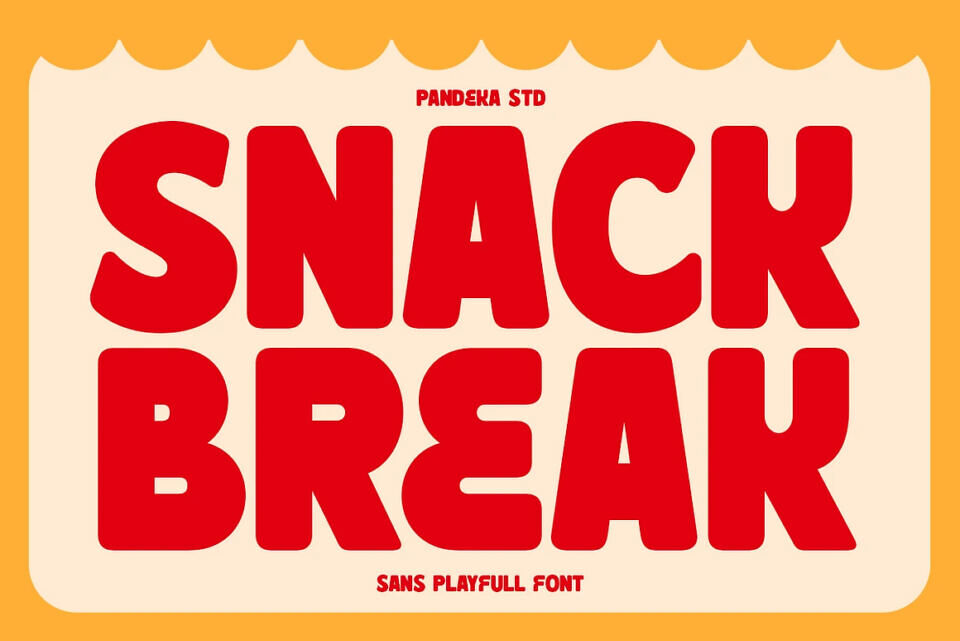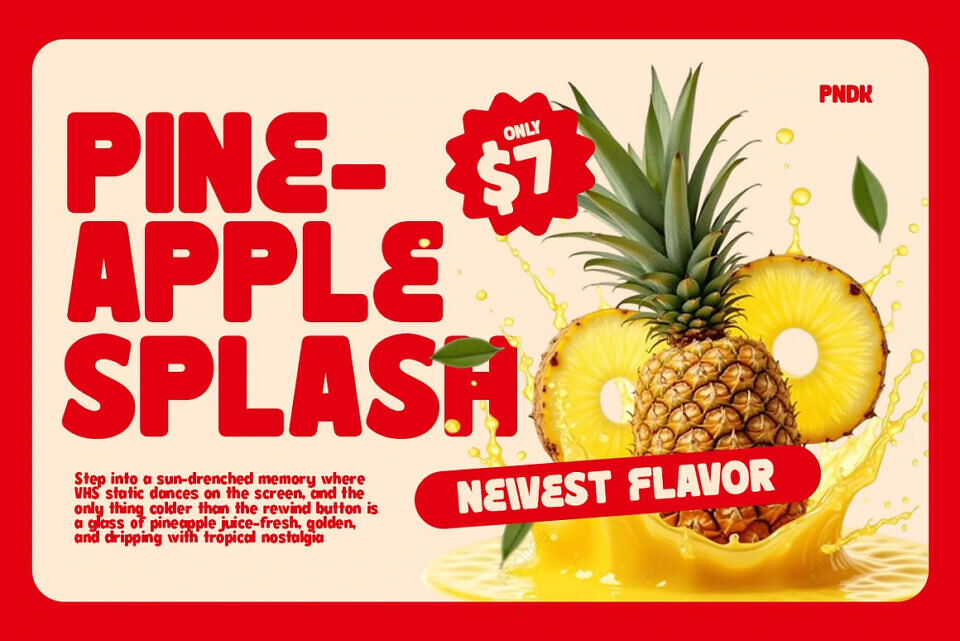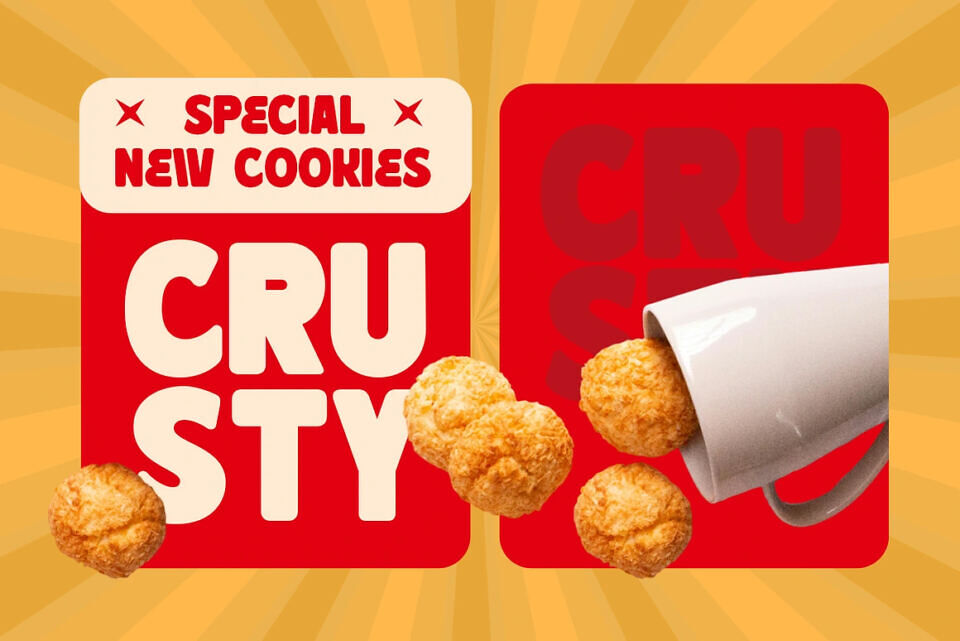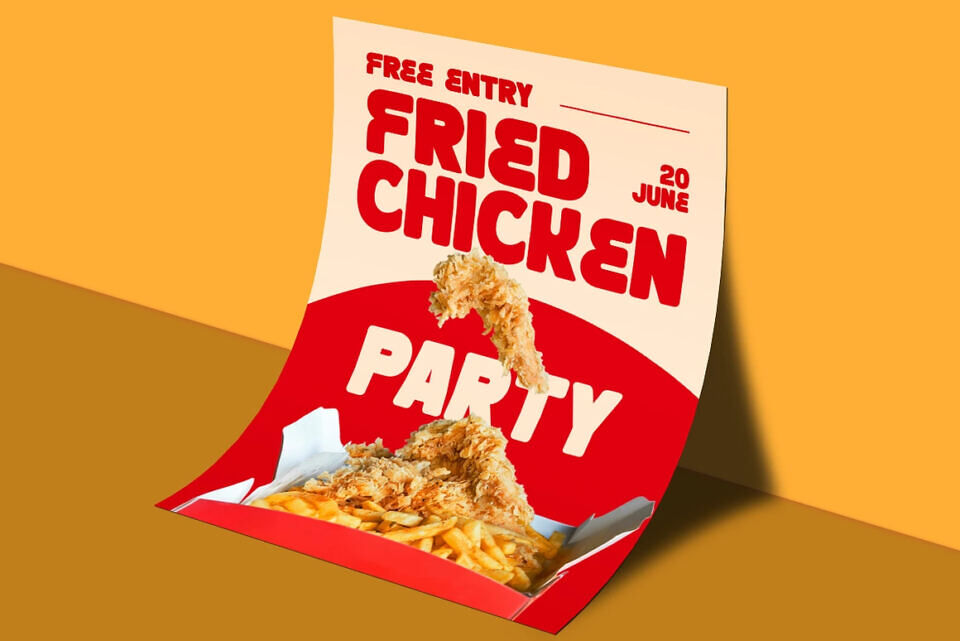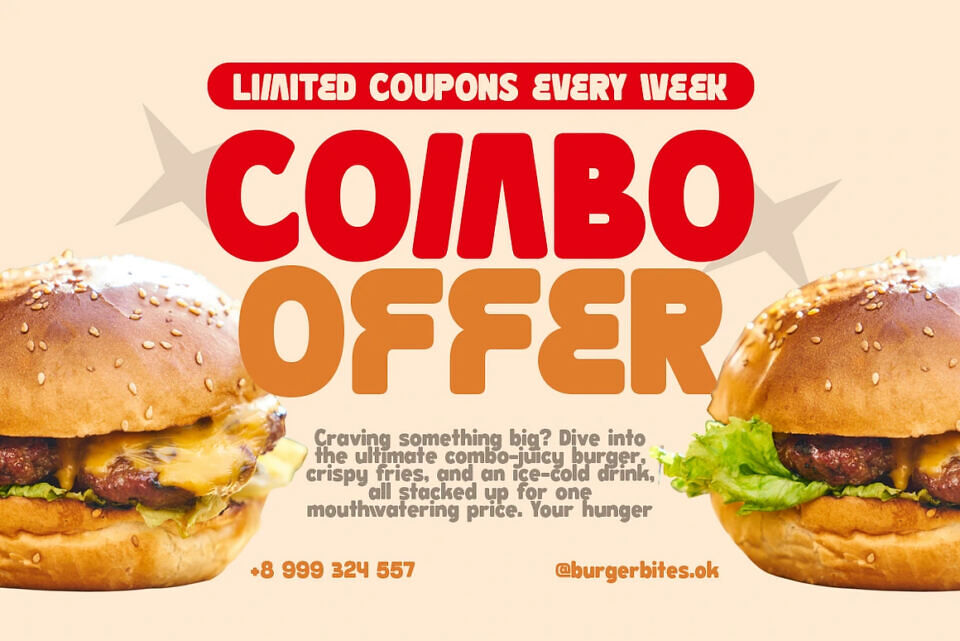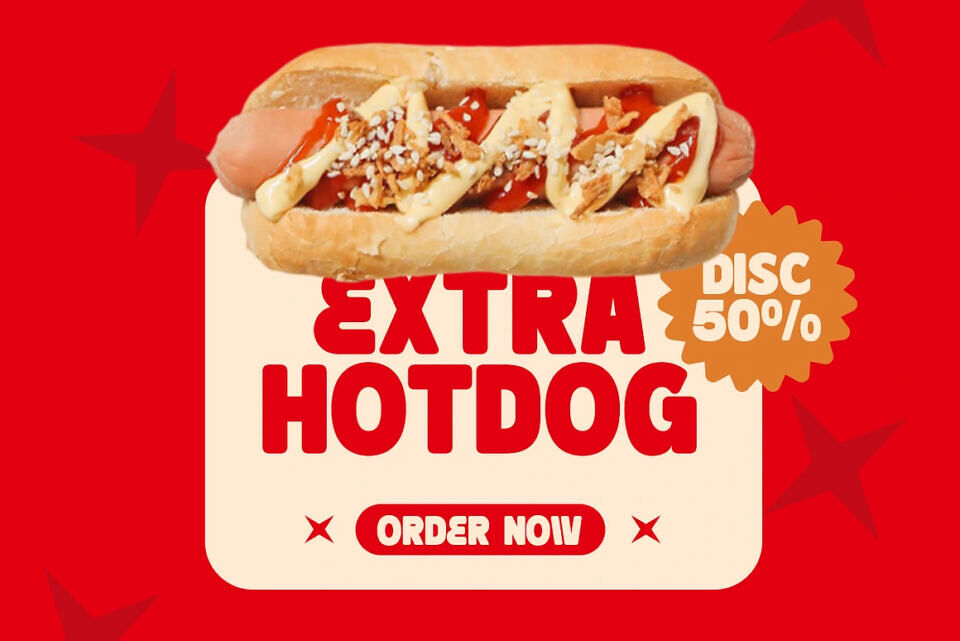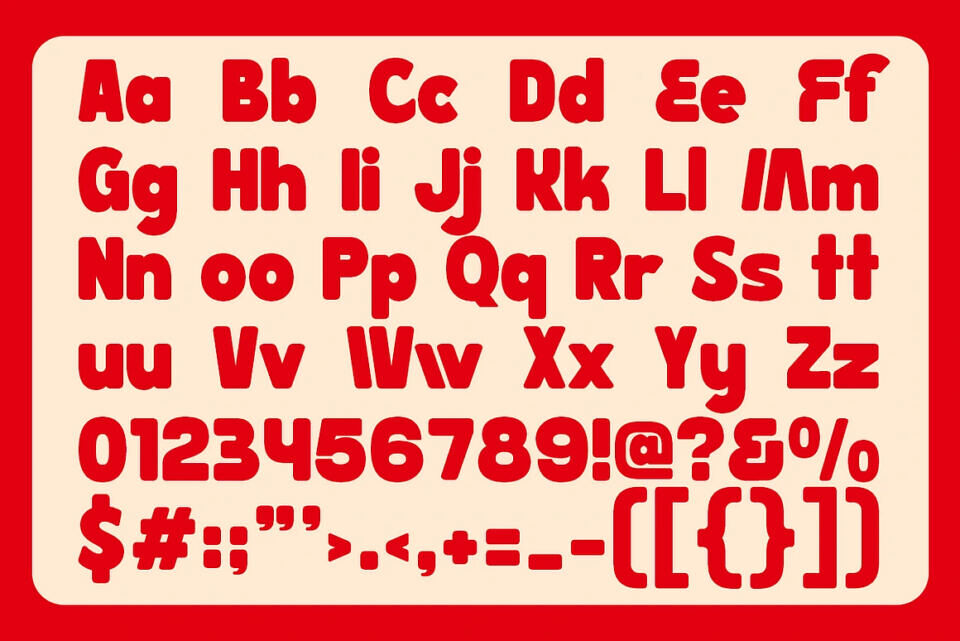
Snack Break Font
Snack Break is a bold and friendly sans serif font that radiates warmth and cheer. Inspired by fun snack packaging, retro signage, and cozy café vibes, its rounded letterforms and chunky proportions make it perfect for food branding, menu designs, product packaging, event posters, and playful advertising.
With a single Regular style, Snack Break delivers maximum personality in every letter. Its soft edges and lively curves grab attention while keeping a welcoming tone, making it ideal for anything from bakery logos to eye-catching promo graphics. Complete with uppercase and lowercase letters, numerals, punctuation, symbols, and multilingual support, Snack Break is ready to serve your creative projects around the globe.